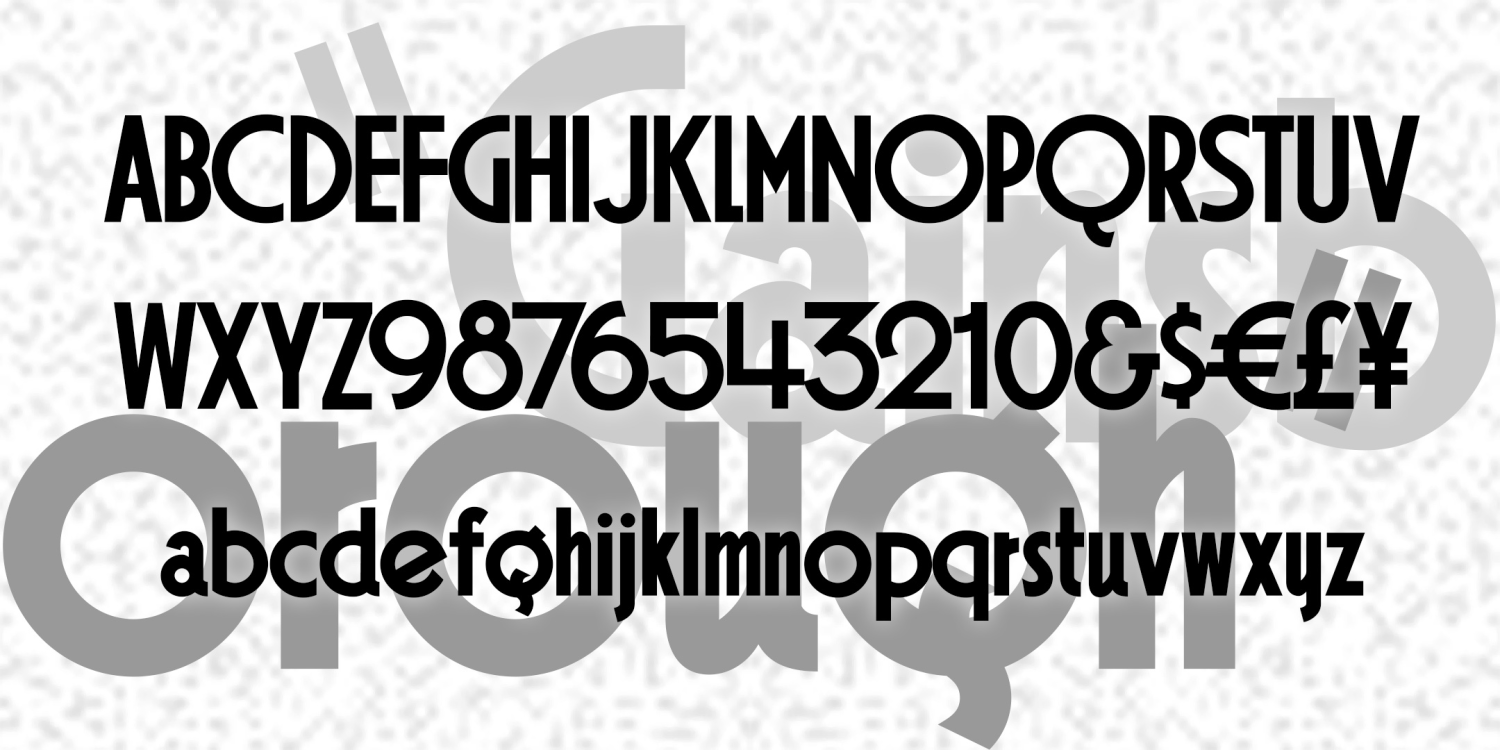
Gainsborough 2.0
About Gainsborough 2.0
GAINSBOROUGH is a bold geometric font in a high Art Deco style. I was attracted to the extreme distortion in some of the letters, emblematic of the style, and preserved that in my design. Gainsborough was inspired by the hand-lettered titles of the 1938…